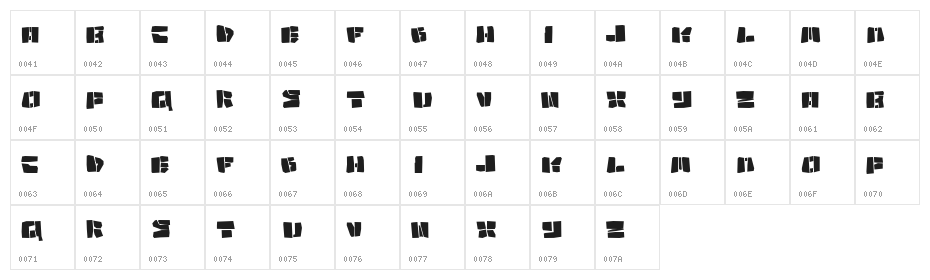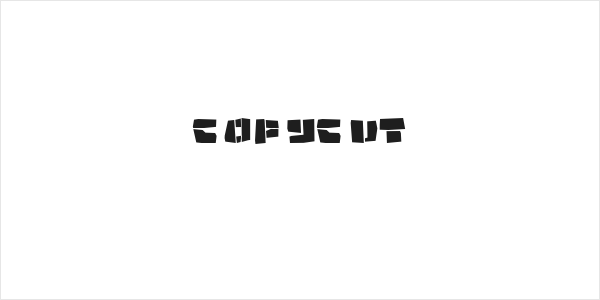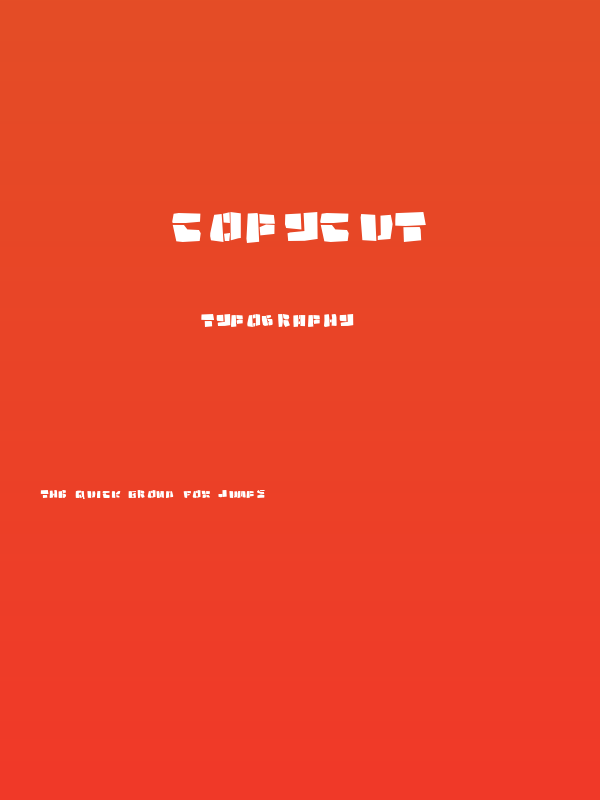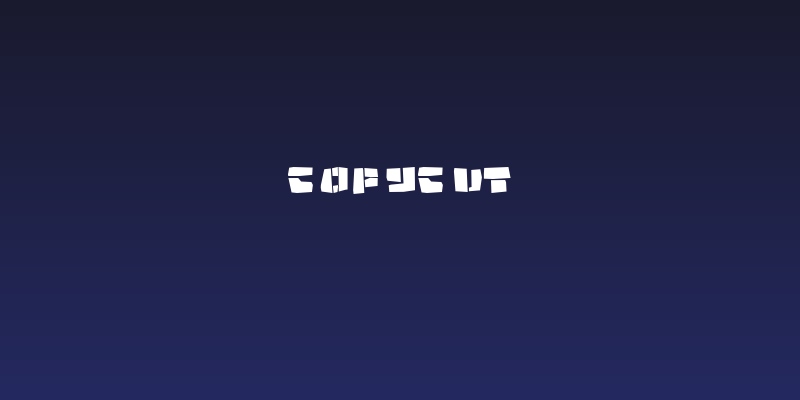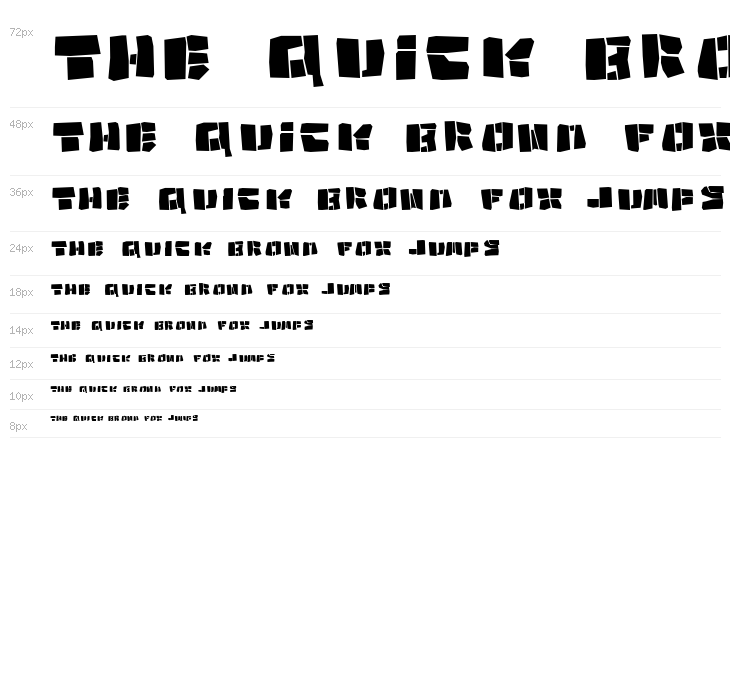
Copycut Font
Copycut Description
This font features a bold, geometric design with a distinct stencil-like appearance. The characters are constructed with sharp, angular cuts that create a fragmented look, reminiscent of urban graffiti or industrial signage. The uppercase letters are particularly striking, with each character appearing as if it has been sliced into sections, adding a dynamic and edgy feel. The lowercase letters maintain this style, ensuring consistency throughout the typeface. The numbers and special characters follow the same design principles, making the font versatile for various creative applications.
| Proposed Projects | Ideal for urban-themed posters, edgy branding, streetwear designs, and music album covers. |